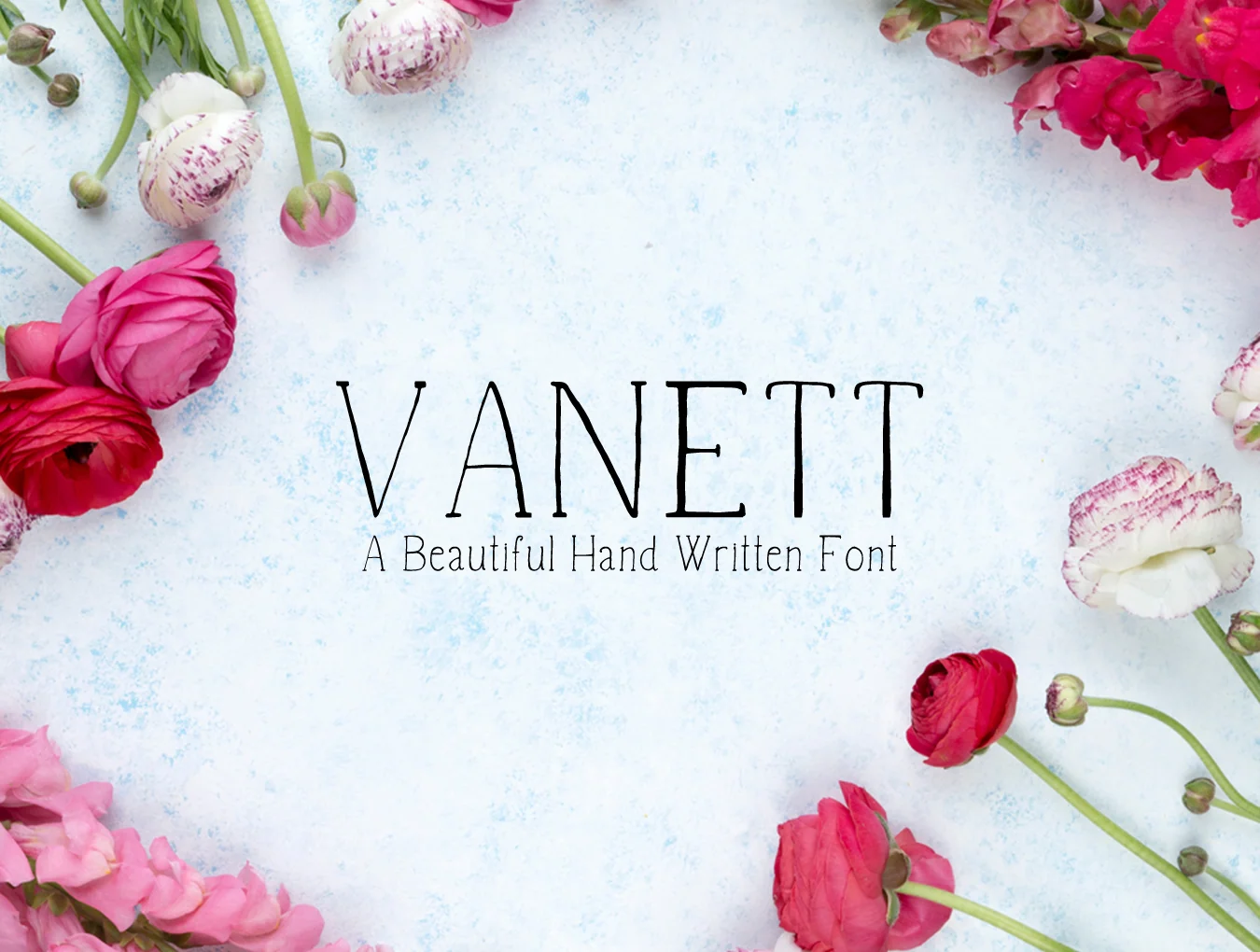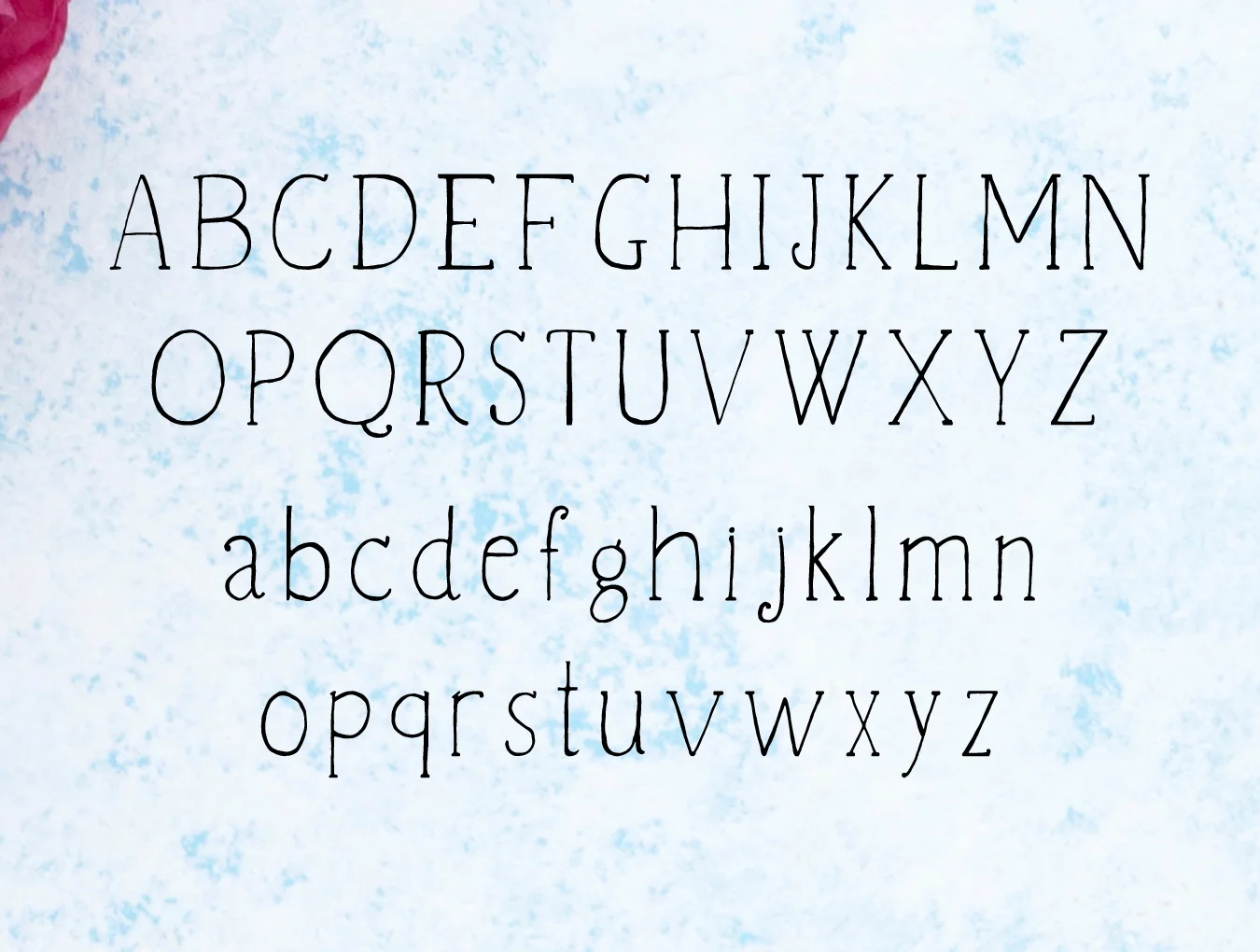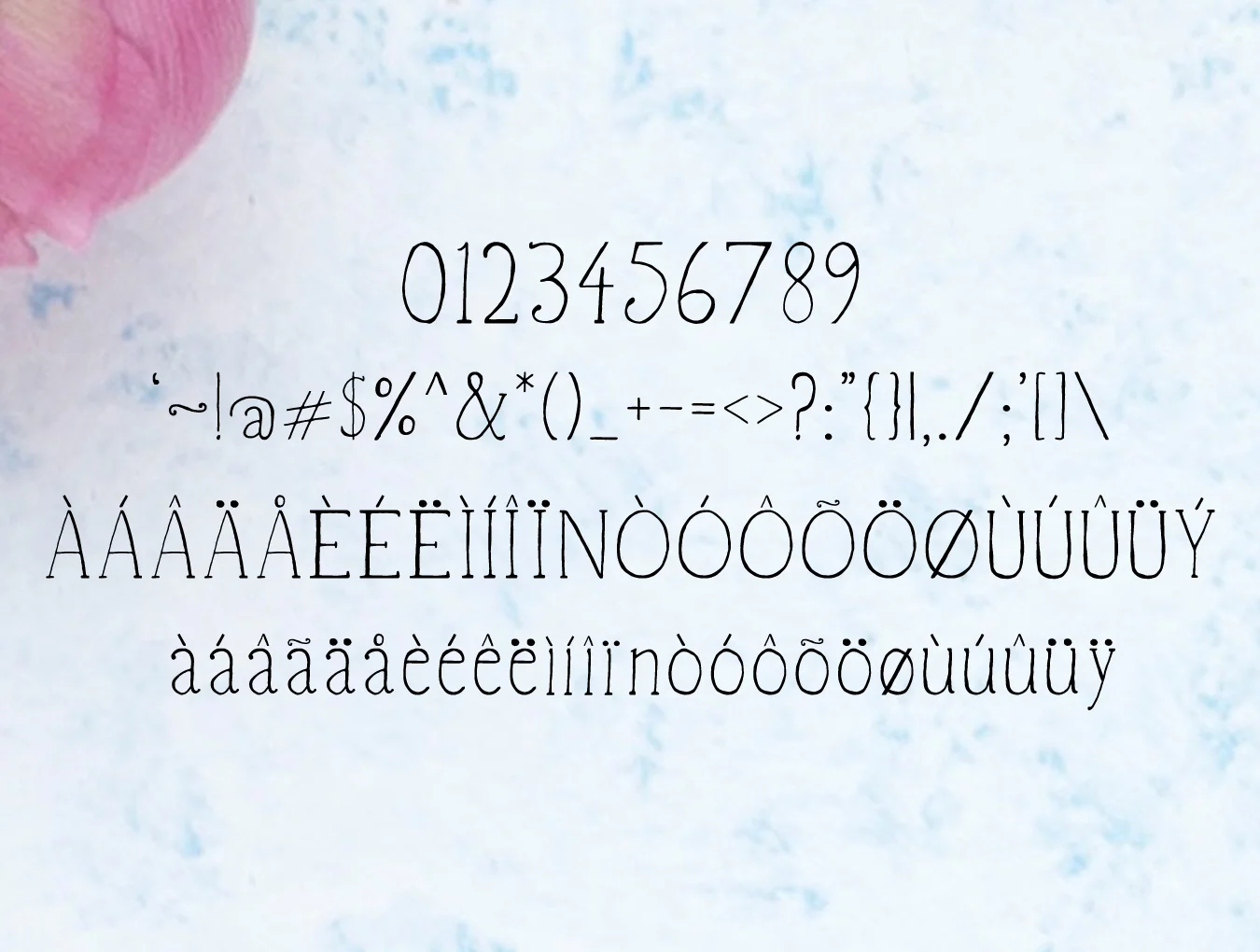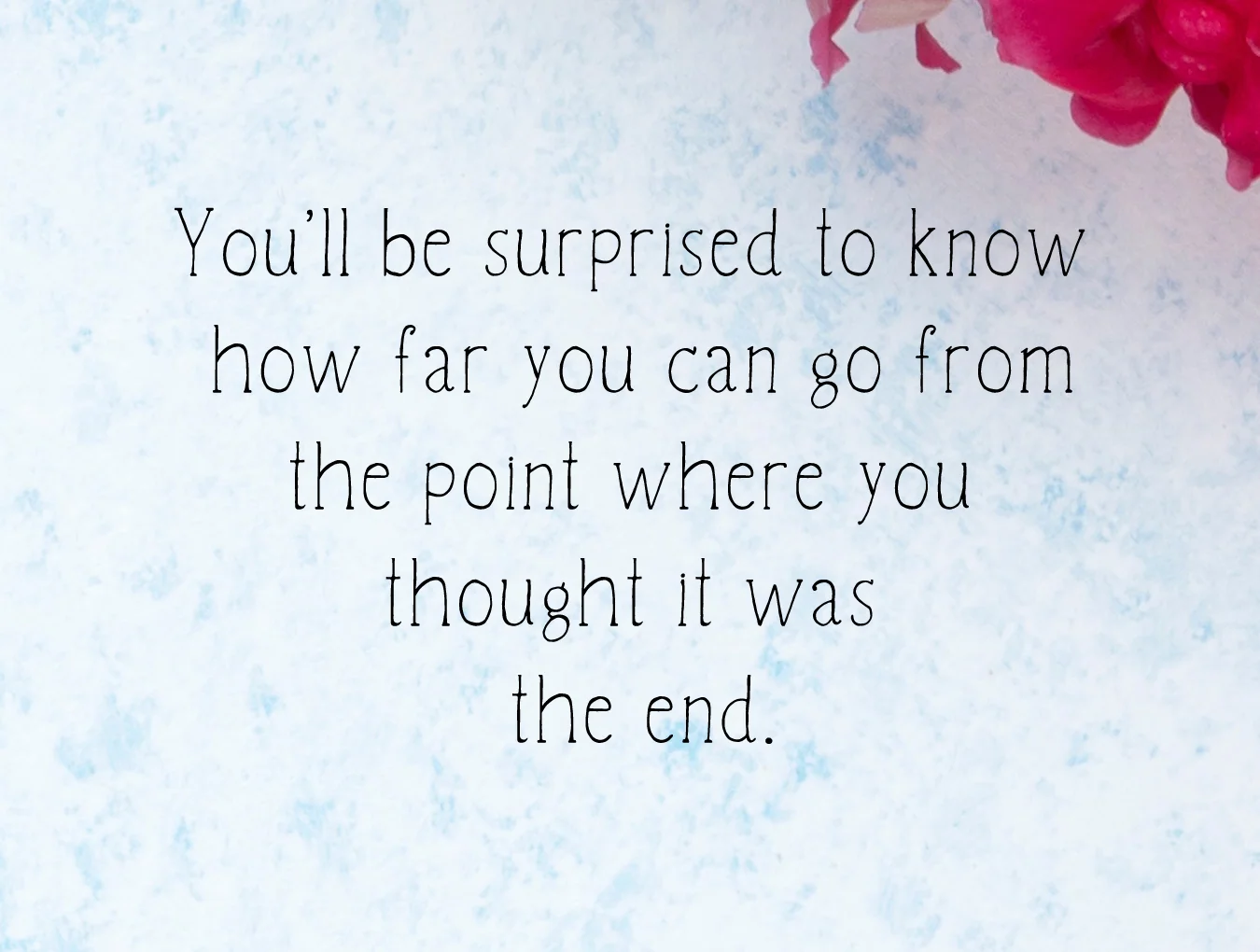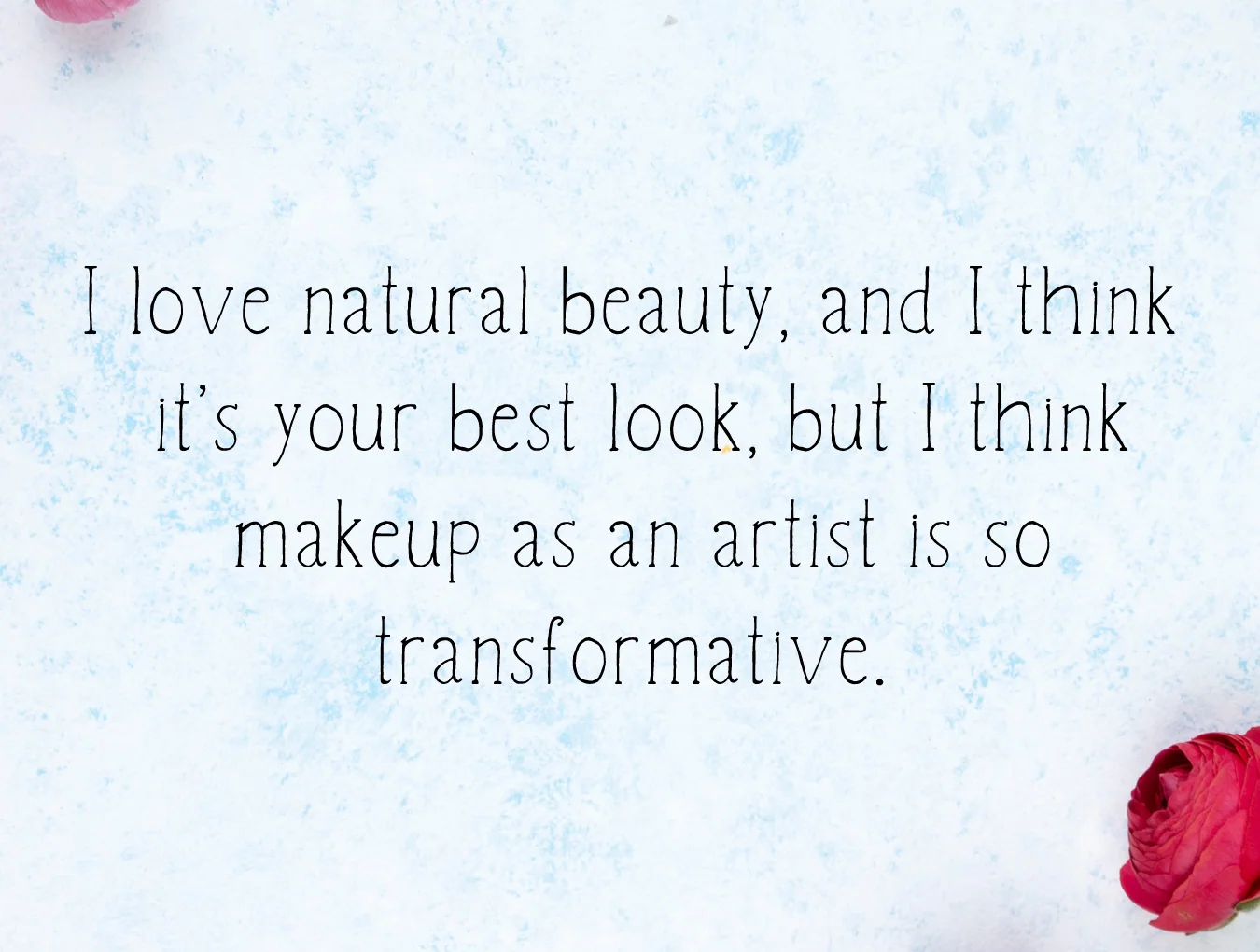
Vanett
An Elegant Handwritten Serif Typeface
Hand-drawn serif typeface
Vanett is a handwritten serif typeface with uppercase and lowercase letters, numbers, punctuation, and alternate characters. It suits many creative uses, including quotes, logos, merchandise, social media graphics, displays, headings, invitations, save-the-dates, wedding designs, titles, packaging, and more.